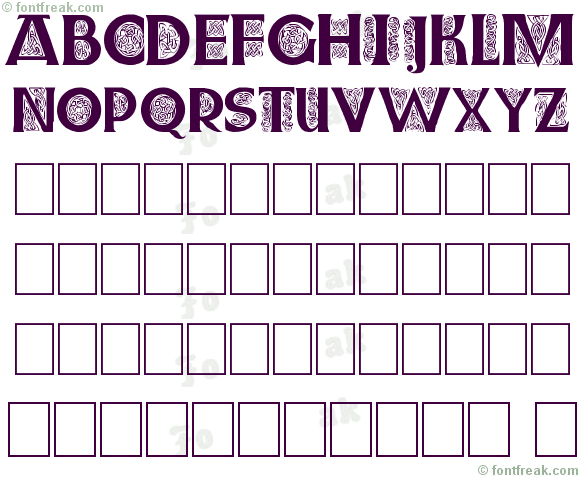
Farnoe Initials
Farnoe Initials is a unique decorative font designed by Renn Crump, launched in March 2002. This font falls into the category of initials, making it ideal for projects that require a touch of elegance and personalization. Characterized by its intricate designs, Farnoe Initials features a blend of bold stroke weights and fine detailing, creating a striking contrast that enhances its visual appeal. The spacing is thoughtfully executed, allowing for seamless integration into various layouts while maintaining legibility.
This font is particularly suited for a range of creative applications. It can elevate wedding invitations with its romantic flair, making them feel more personalized and special. Additionally, Farnoe Initials is perfect for crafting unique monograms, which can add a sophisticated touch to stationery or branding materials. It can also shine in the realm of event signage, such as for upscale restaurants or galleries, where a refined aesthetic is essential. Furthermore, graphic designers can leverage this font for bespoke packaging or marketing materials, giving products an upscale look that distinguishes them from the competition.
The target audience for Farnoe Initials includes graphic designers, small business owners, and content creators who seek to infuse their work with a sense of artistry. This font’s ability to meld traditional elegance with modern design makes it a versatile choice for various creative projects.
What sets the Farnoe Initials font apart is its ability to combine intricate detail with functionality. It stands out not just for its aesthetic qualities but also for its versatility across different mediums. For those interested in enhancing their designs, the Farnoe Initials font free download offers an excellent opportunity to access a unique typographic resource that can elevate any project.